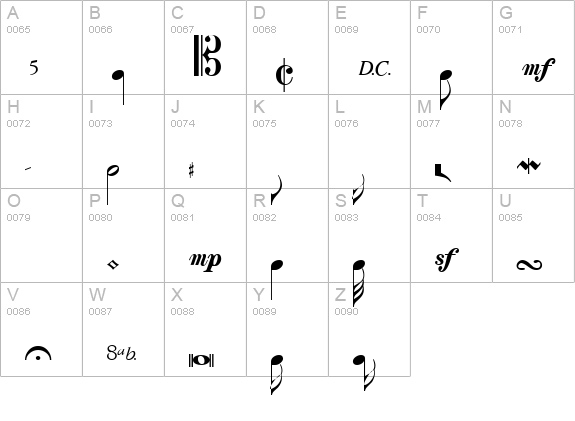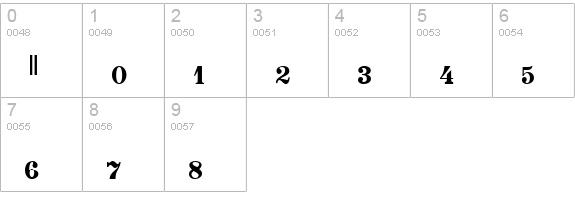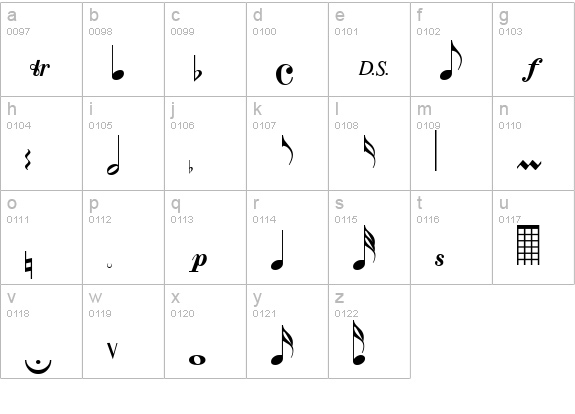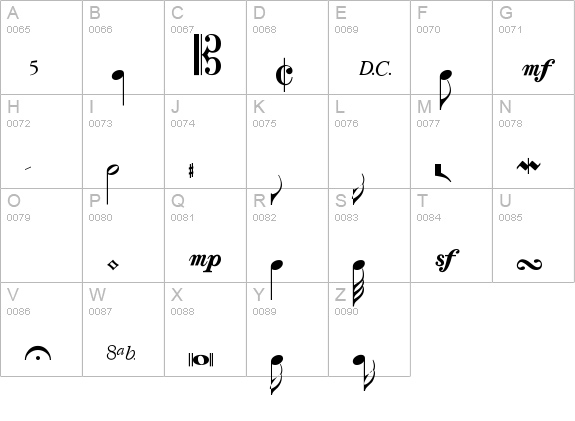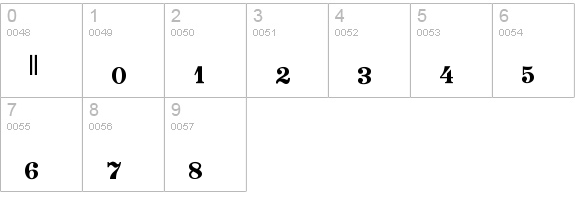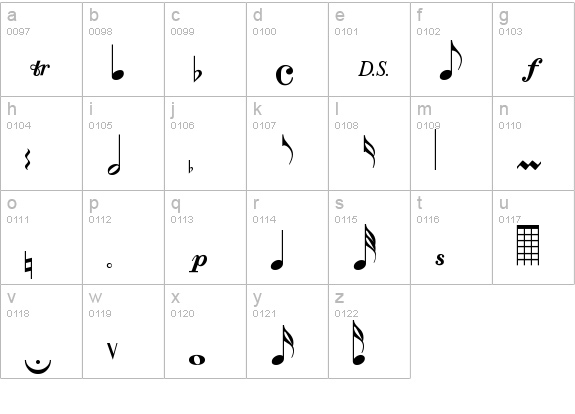
Clef Notes Font Details
Clef Notes font is a beautifully crafted typeface that exudes elegance and sophistication. With its intricate details and delicate curves, this font is perfect for adding a touch of charm to any design project. Whether you're creating invitations, branding materials, or social media graphics, Clef Notes font is sure to make a statement. What sets Clef Notes font apart is not only its exquisite design but also the fact that it is available for free download at FontsMarket.com. Yes, you read that right - this stunning font can be yours at no cost, allowing you to elevate your creative work without breaking the bank. So why wait? Enhance your projects with the timeless beauty of Clef Notes font today. Download it for free at FontsMarket.com and let your creativity soar to new heights.